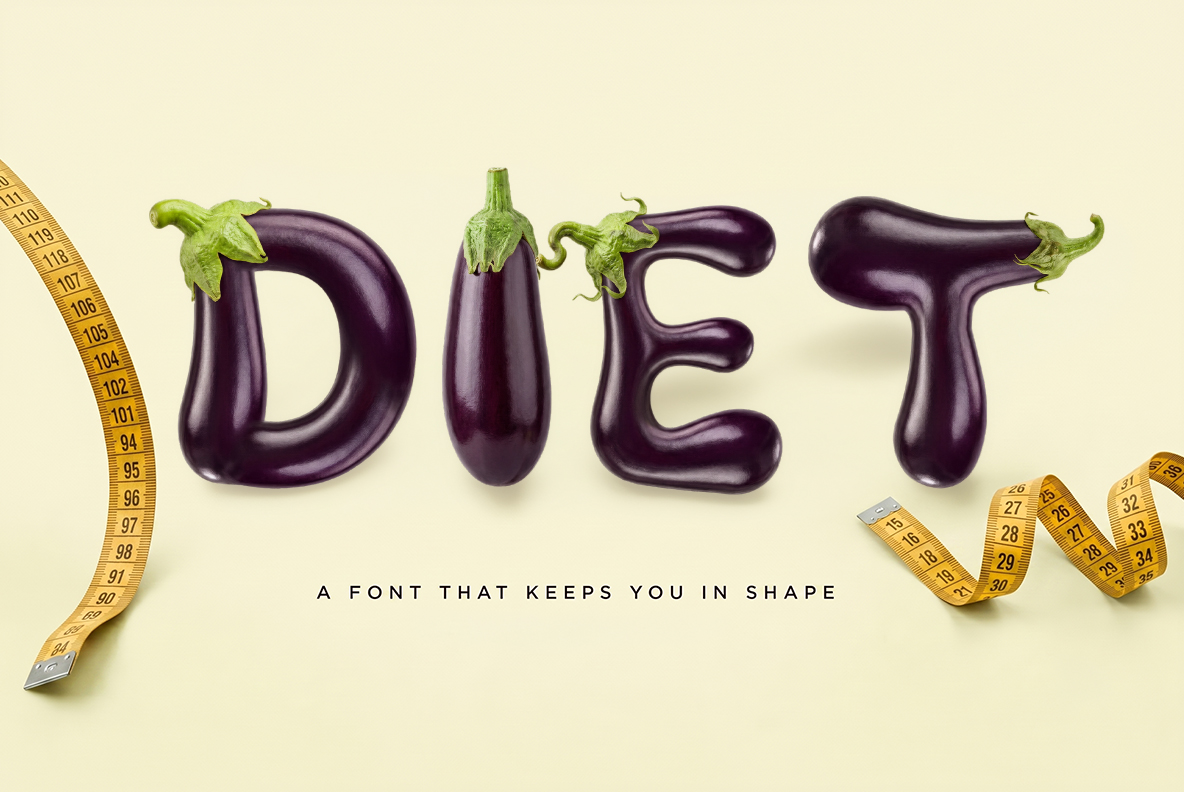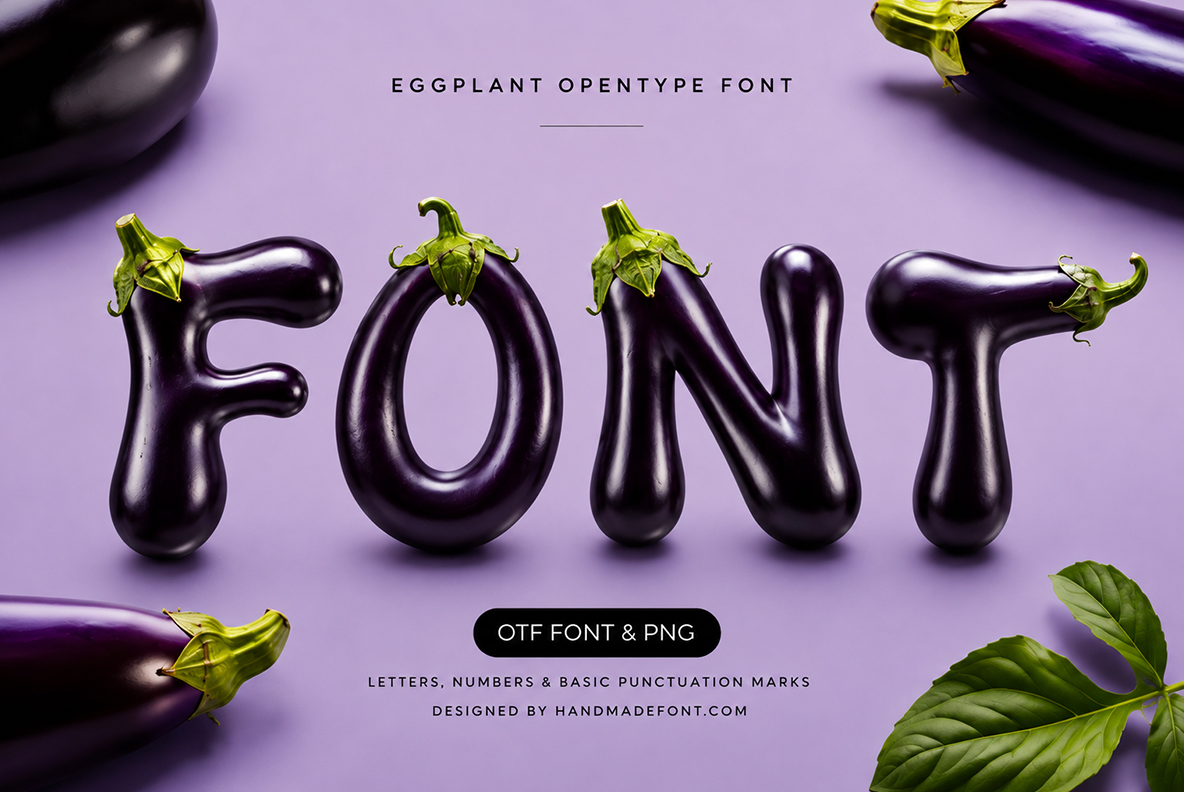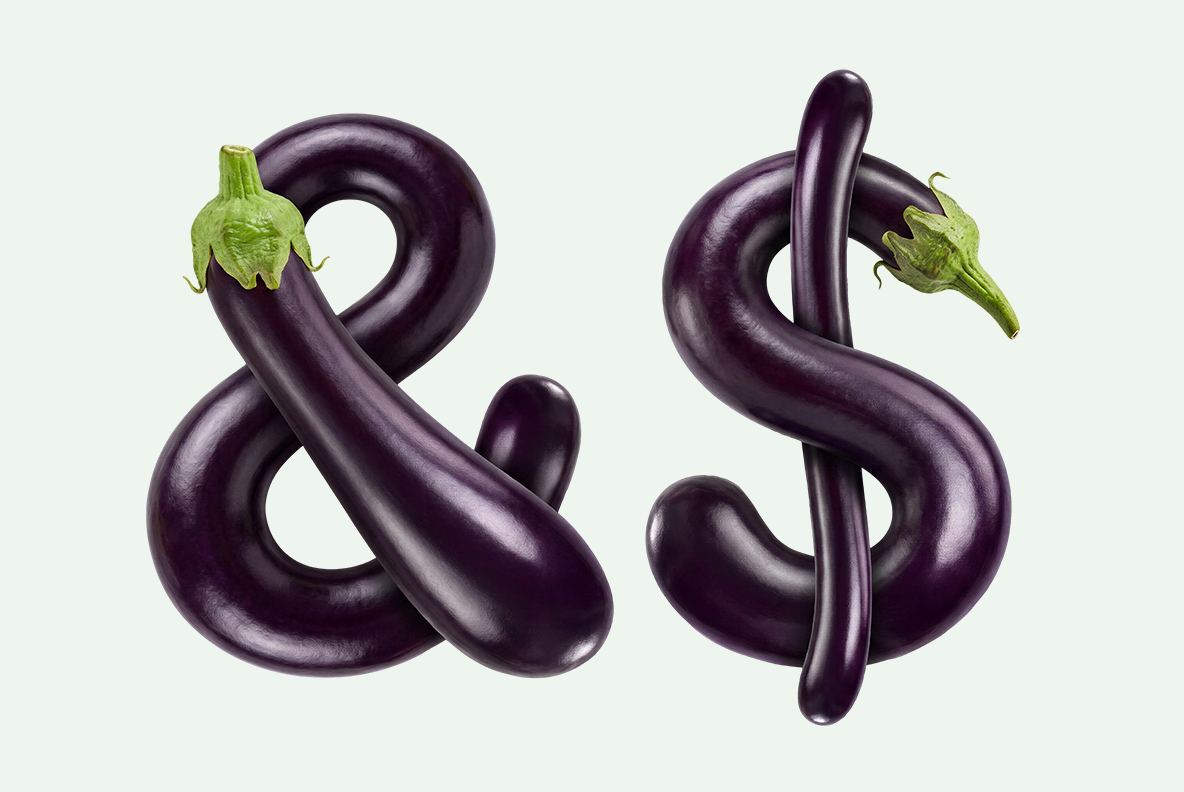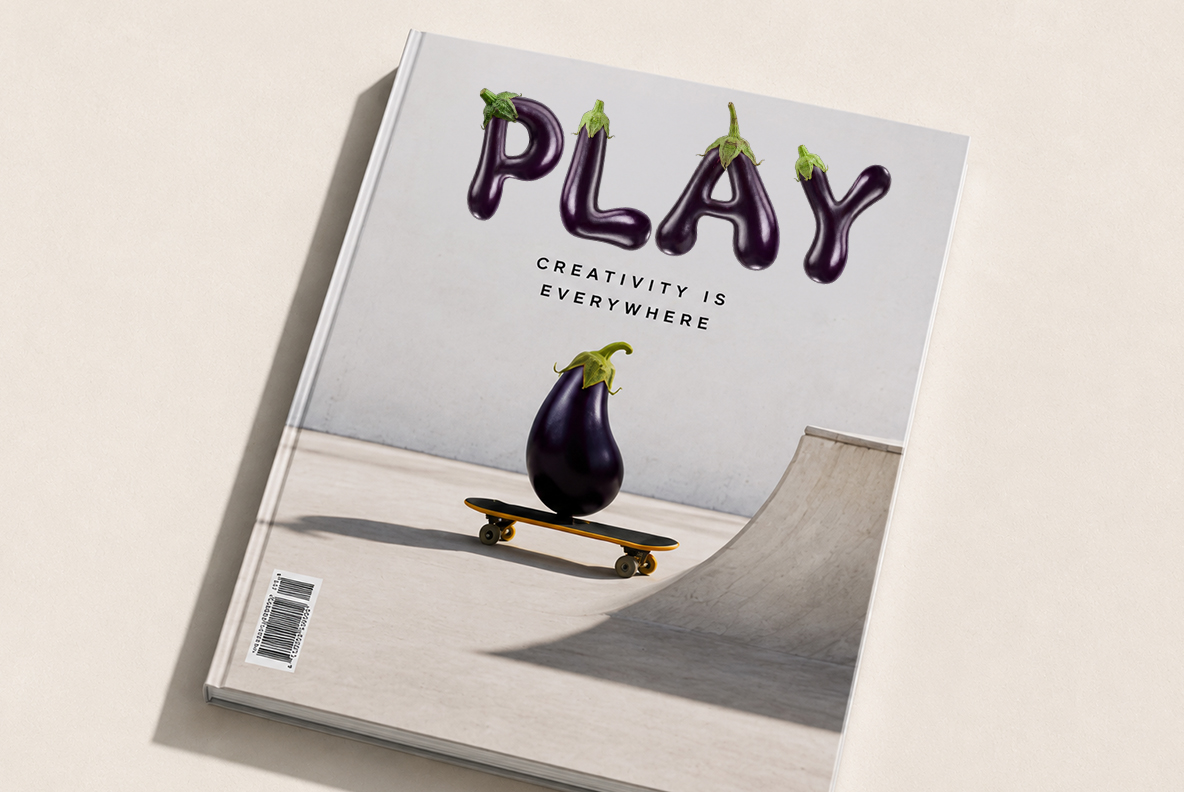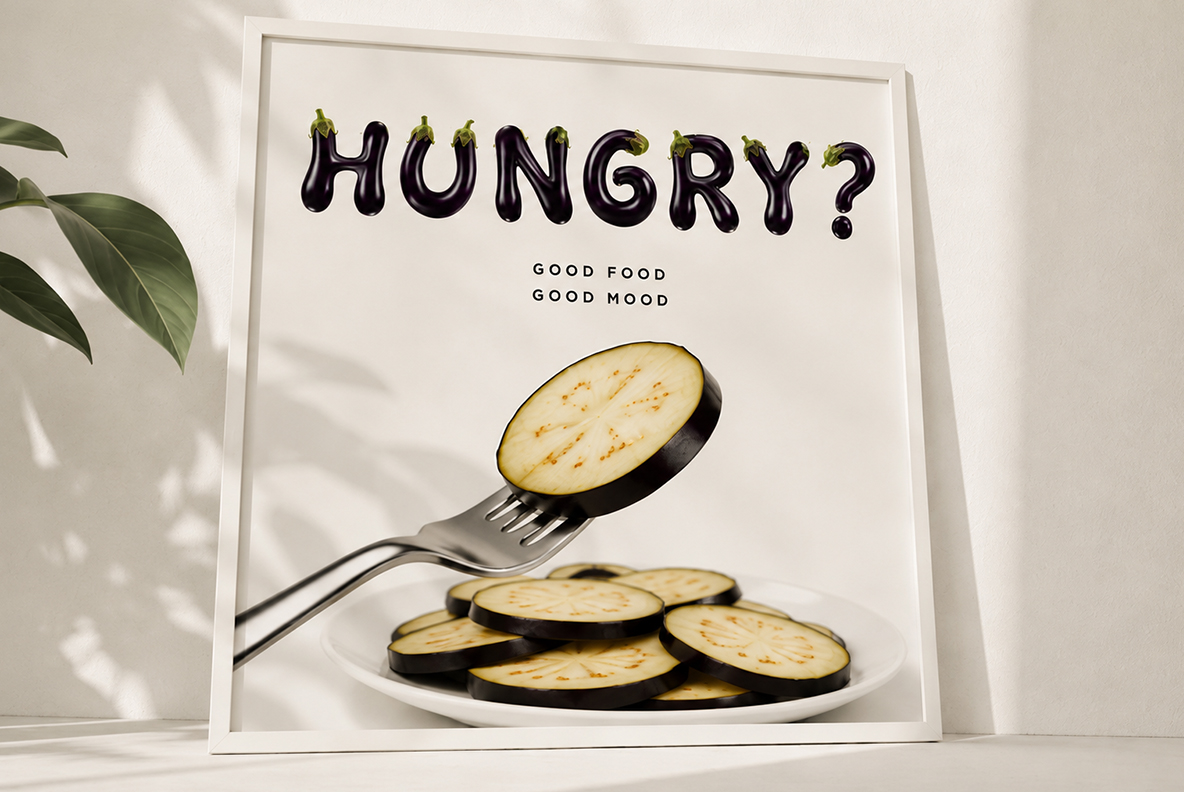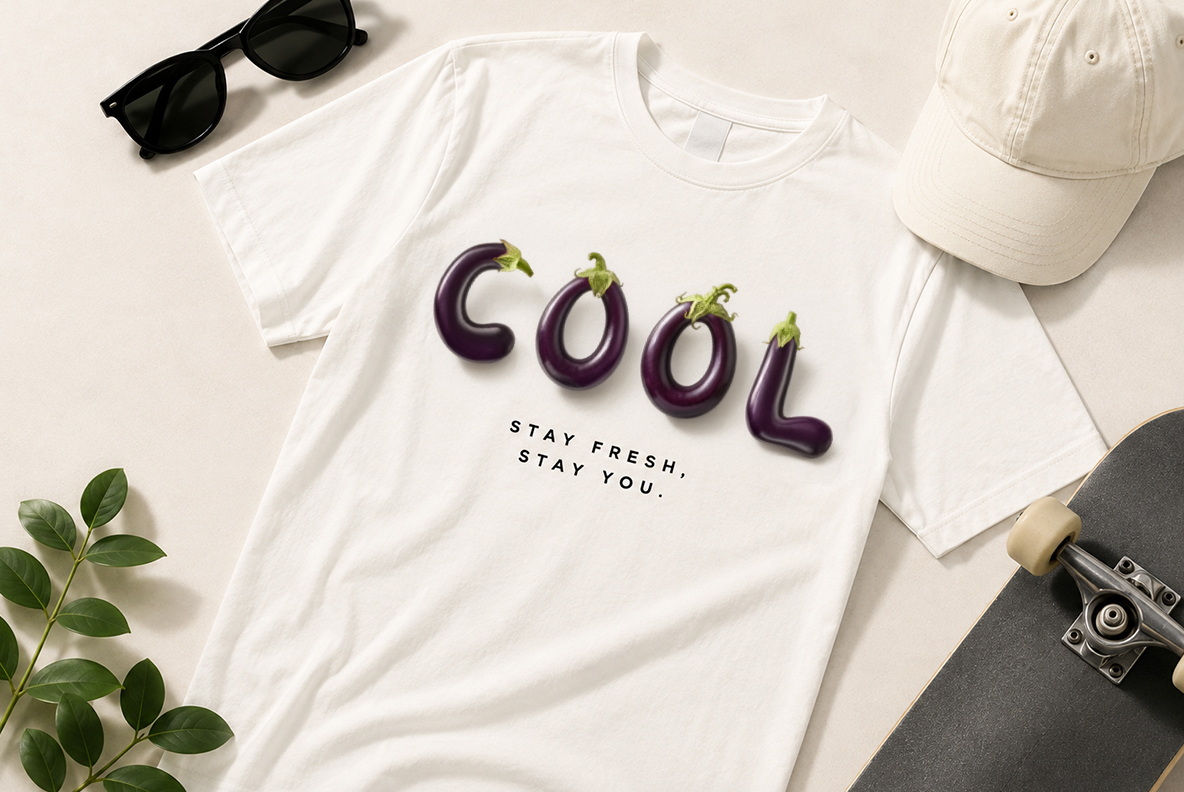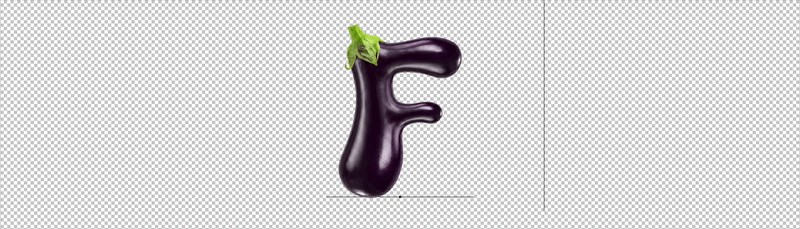
Eggplant Font. Glossy Aubergine Bubble Letters
Every capital is a single glossy aubergine bent into shape, skin waxy and almost black in the shadows, with a green spiny calyx sprouting from one end. The Eggplant Font keeps a chunky rounded bubble skeleton, so words stay open and readable despite the dark colour. Figures, currency signs and punctuation grow the same way.
Grown, Not Drawn
Indeed, each letter is a single aubergine bent into shape, skin still waxy and dark. The purple goes almost black in the shadows, then flares to a hard white highlight along the top of every stroke. Small dimples and faint streaks sit in that skin, because real vegetables are never perfectly smooth. Above all, a green calyx with its little spines sprouts from one end of most glyphs. So the whole alphabet looks picked rather than designed.
Fat Rounded Shapes With a Green Cap
The letterforms themselves are chunky and rounded, closer to a bubble sans than anything botanical. Strokes therefore keep an even thickness, and the terminals swell into soft blunt ends. Since the counters stay open and generous, words hold together even when the colour runs this dark. Figures, currency signs and punctuation likewise follow the same plump logic. Besides, the roundness keeps the type friendly rather than precious. Meanwhile the leafy caps break the line in a pleasing, slightly untidy way.
Animated aubergine letters of the Eggplant Font spelling the start of the word font
Menus, Markets and Eggplant Font Headlines
Greengrocers take this one without thinking, and so do vegan cafes, recipe books and delivery boxes. It also suits farmers market posters, seed packets, food festivals and cheerful supermarket signage. Because the letters glow against pale backgrounds, cream and mint stock flatter them most. Print it big and the shine reads from across a room too. A vegetable with a very different silhouette waits in Cucumbers Font instead. Naturally a little humour helps, and this alphabet has plenty of it.
Title card for the Eggplant Font with the word font built from whole aubergines
Alphabet and numerals of the Eggplant Font laid out on a mint background
Magazine cover with a one-word title set in the Eggplant Font
White t-shirt printed with the word cool in the Eggplant Font
Roadside billboard reading fresh set in the Eggplant Font
Purple cover with the word font set in the Eggplant Font beside whole aubergines
Green panel with a short eco line set in the Eggplant Font and a small flower
Pale panel with a short word set in the Eggplant Font among purple confetti
Cream panel with a single playful word set in the Eggplant Font
Three bold letters of the Eggplant Font with hand-drawn emphasis marks
Short wording in the Eggplant Font laid beside a yellow tape measure
Framed kitchen poster with a one-word line in the Eggplant Font beside sliced aubergine
Three versions of the letter E in the Eggplant Font with different calyx angles
Ampersand and dollar sign of the Eggplant Font shaped from aubergines
Letters A to D and figures one to four of the Eggplant Font on a transparent background